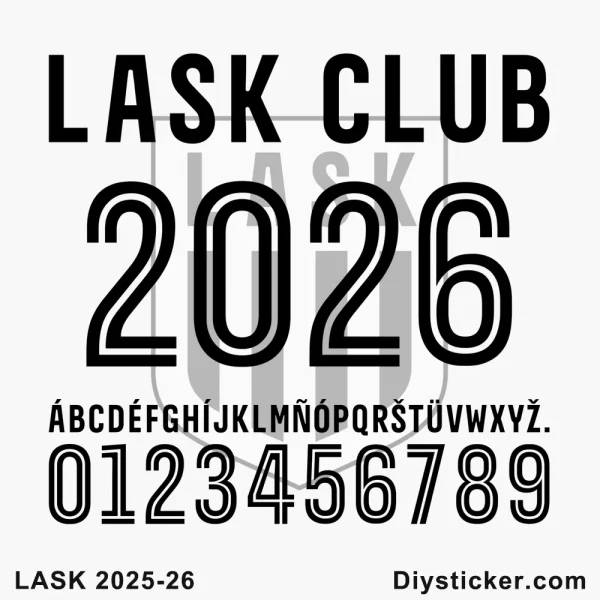
Get the authentic LASK 2025-26 font, inspired by their Austrian Bundesliga kit typography! This comprehensive download includes TTF, OTF, CDR, and PDF vector files, perfect for personal projects, fan art, or professional designs. Instant access to the official LASK look!